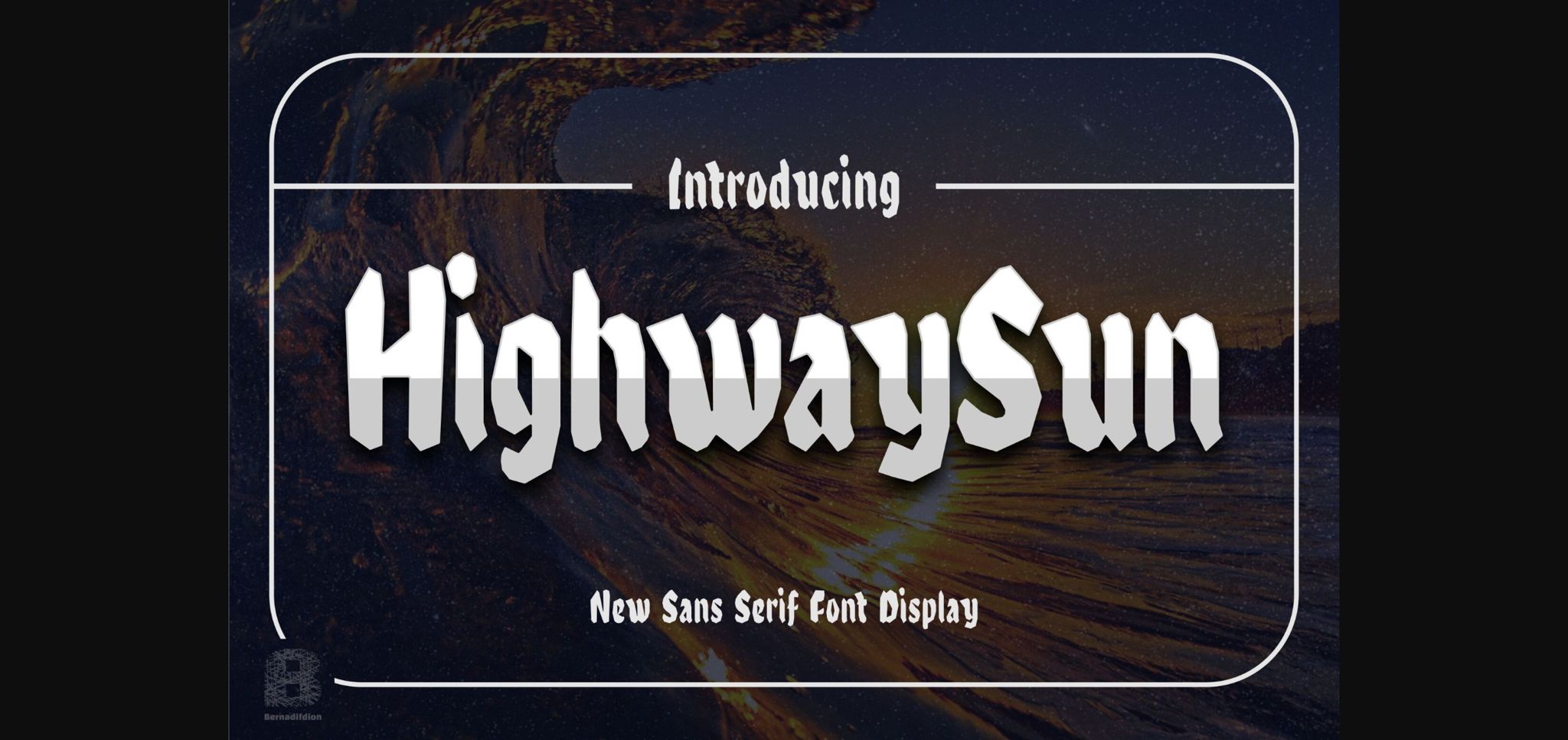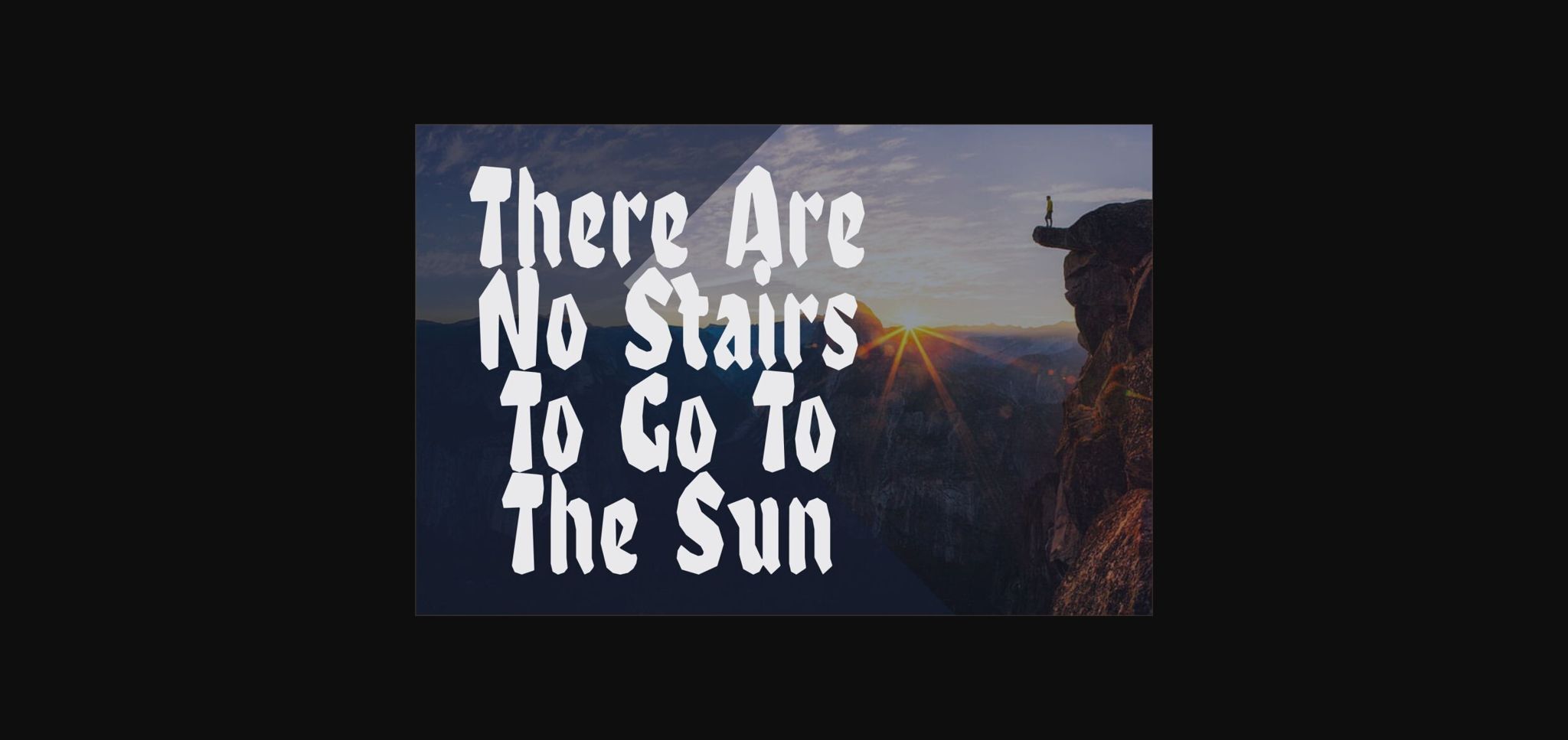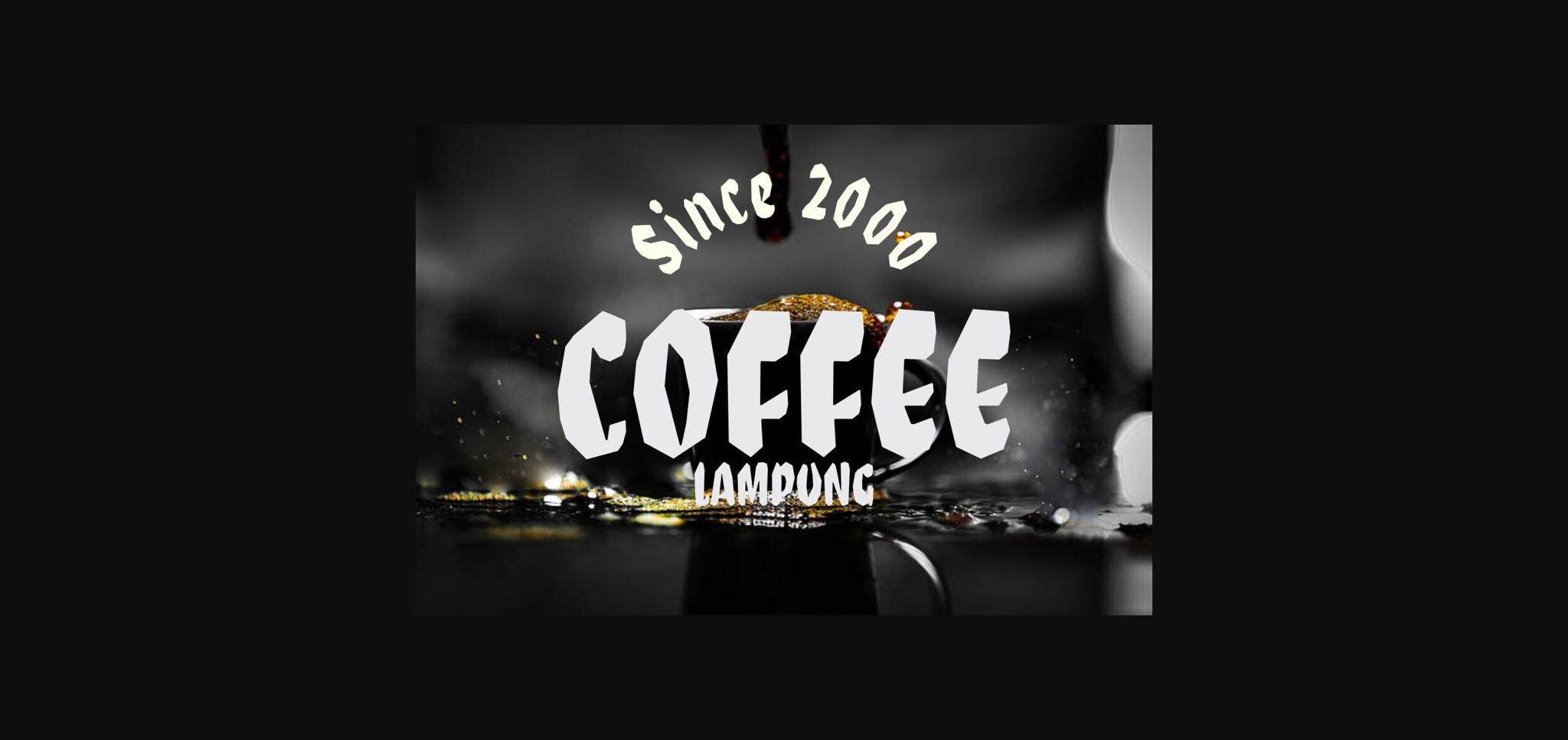
About Highwaysun Font
Highwaysun is a bold and assertive sans serif display font. No matter the topic, this font will be an incredible asset to your fonts’ library, as it has the potential to elevate any creation.